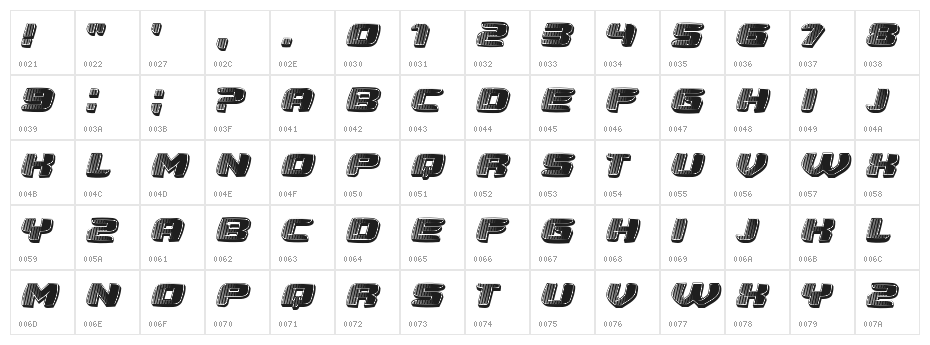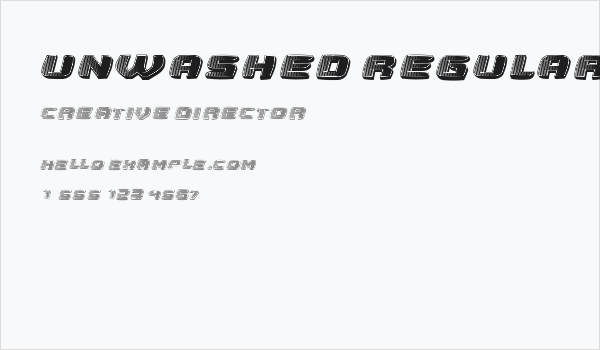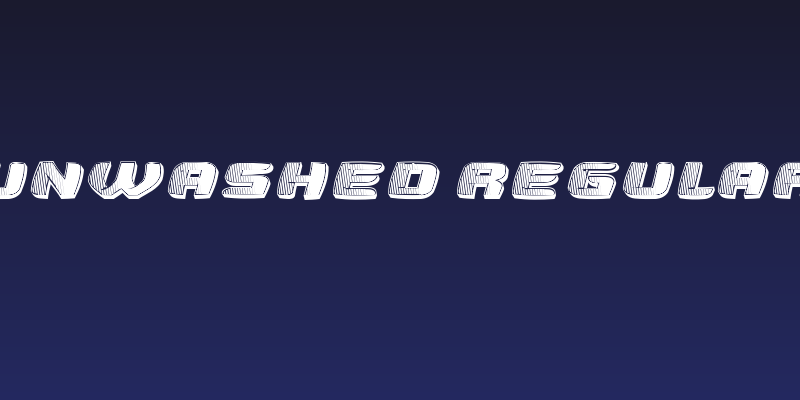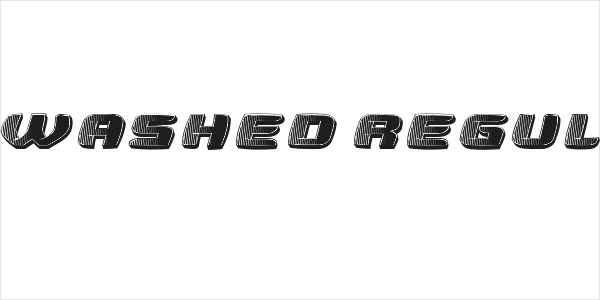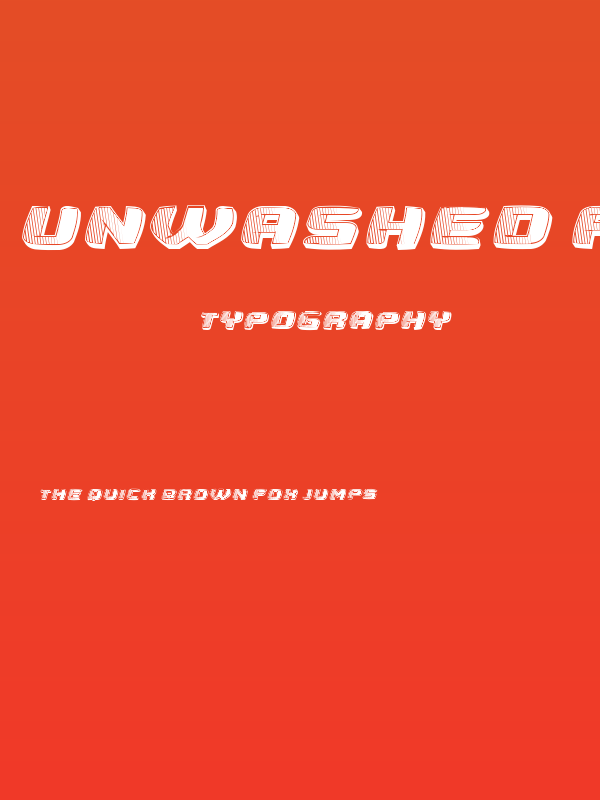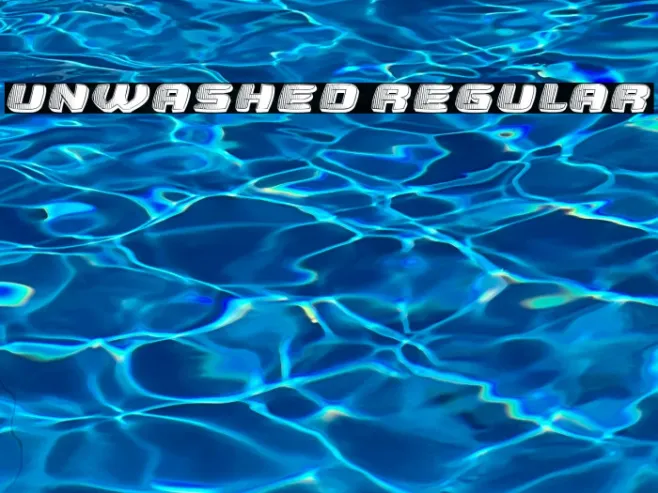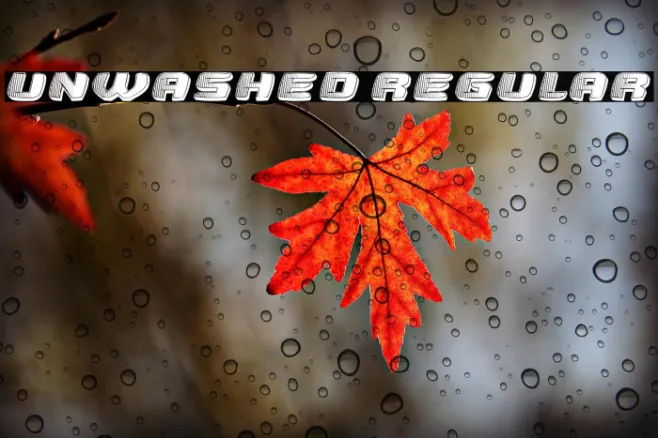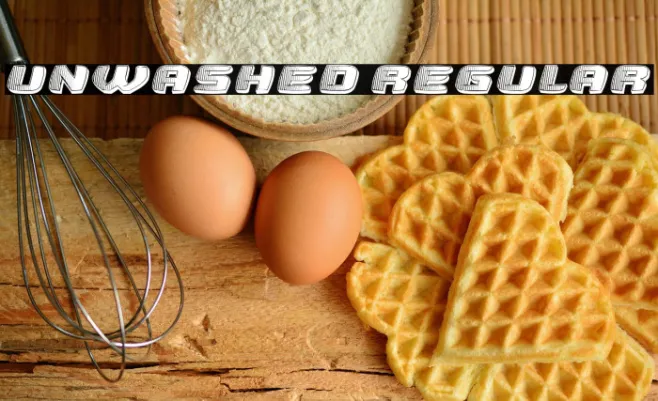
Unwashed Regular Font
Unwashed Regular Description
This font features a bold, decorative style with a unique striped pattern within each character, giving it a dynamic and textured appearance. The letters are uppercase and have a slightly condensed form, which adds to their striking visual impact. The numbers and special characters follow the same design, ensuring consistency across all glyphs. The font's distinct style makes it suitable for eye-catching designs where a modern and playful aesthetic is desired. Its boldness and decorative elements make it stand out, perfect for projects that require a strong visual presence.